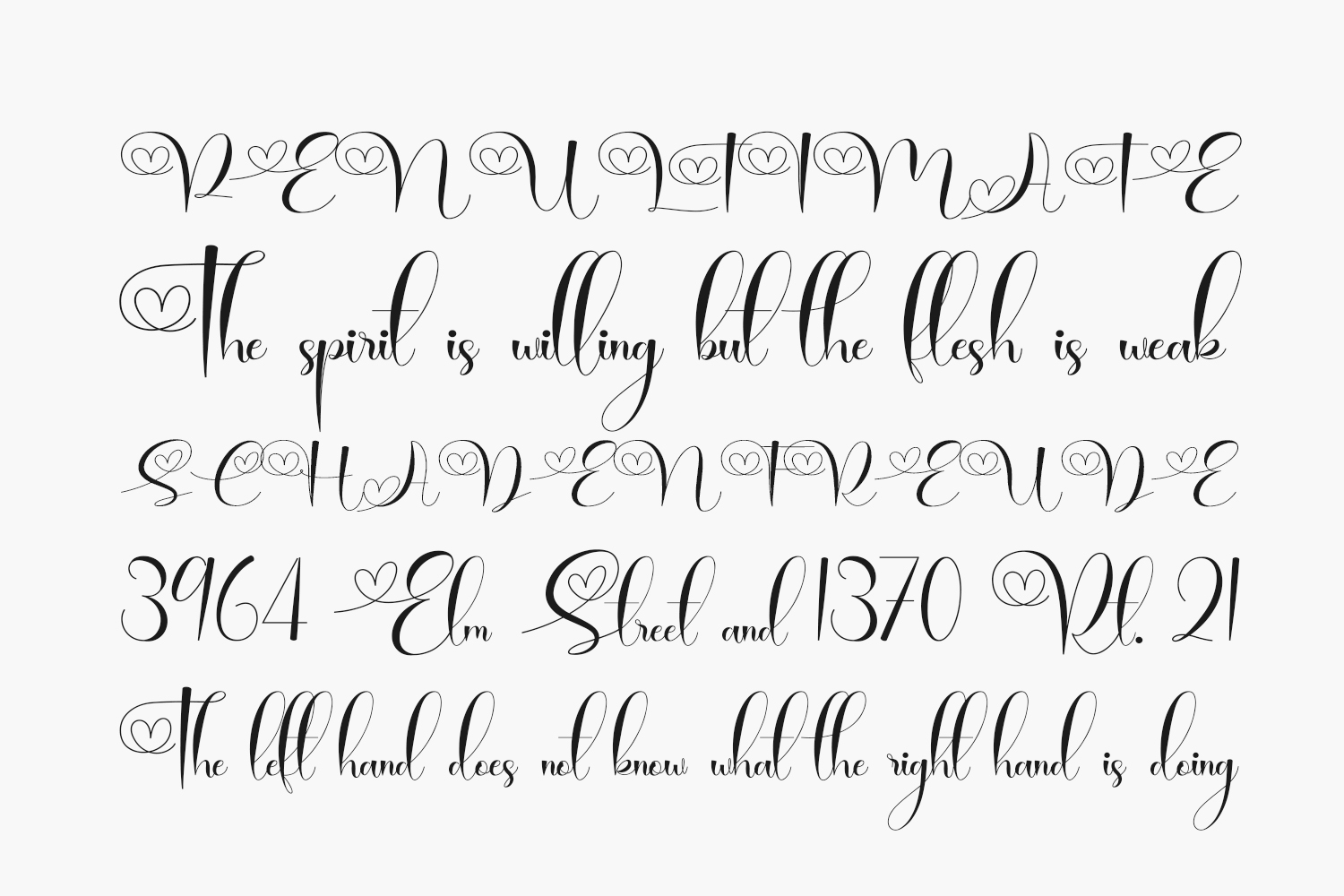
Brilganttyne Free Font is a sweet, soft hand-lettered handwritten font. Fall in love with its authentic feel and use it to create gorgeous wedding invitations, beautiful stationary art, eye-catching social media posts, and cute greeting cards. Brilganttyne Free Font was designed by Naharstd and is free for personal use only. Please purchase the full version for commercial use.